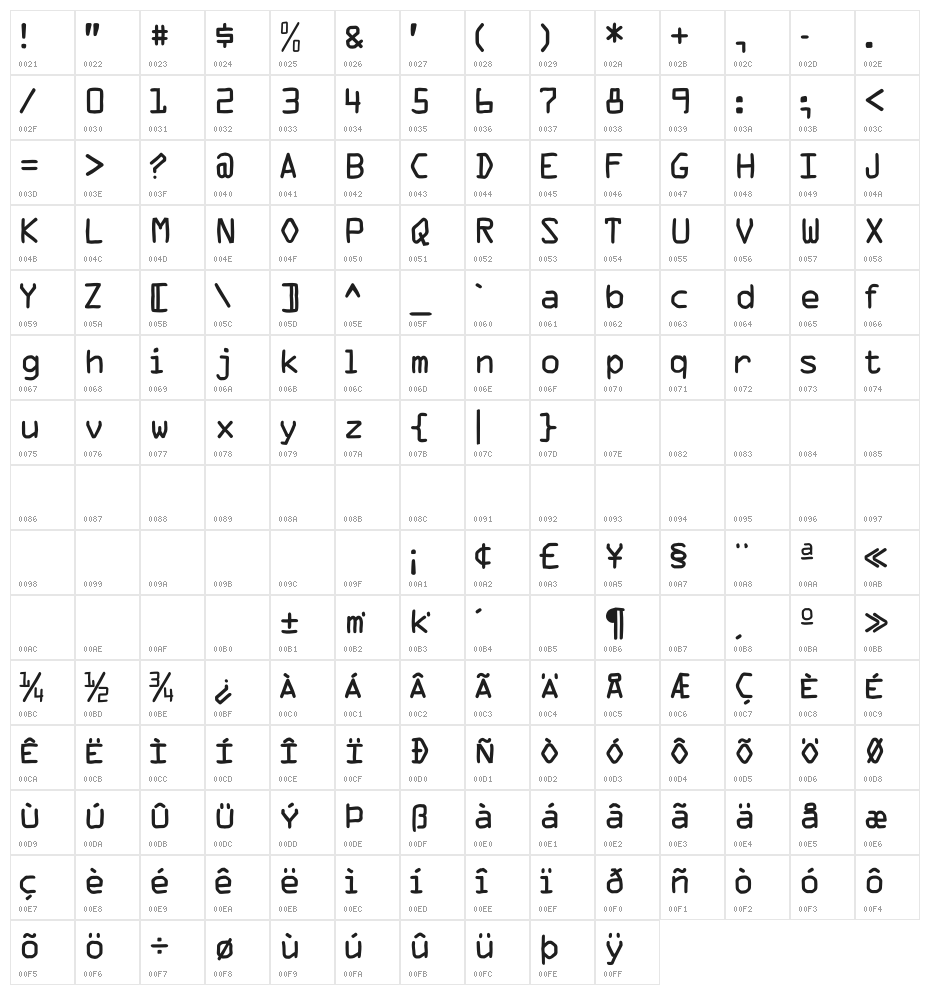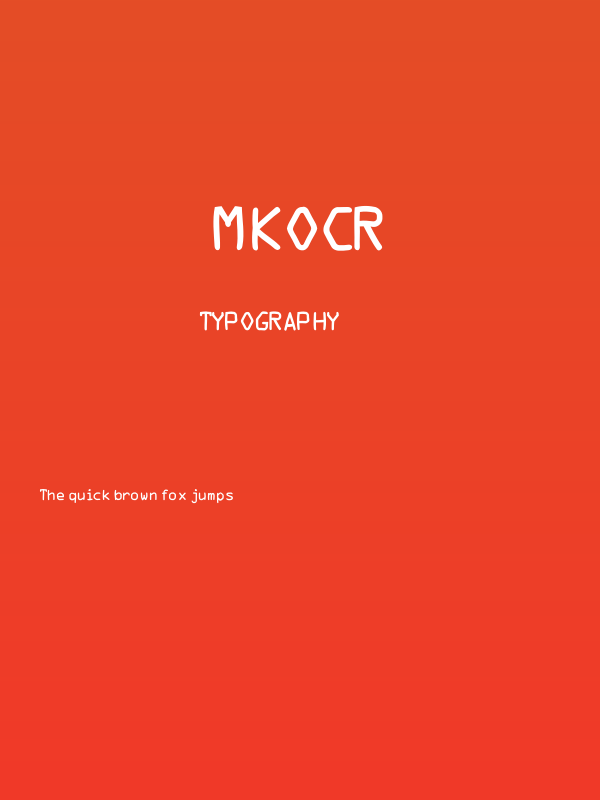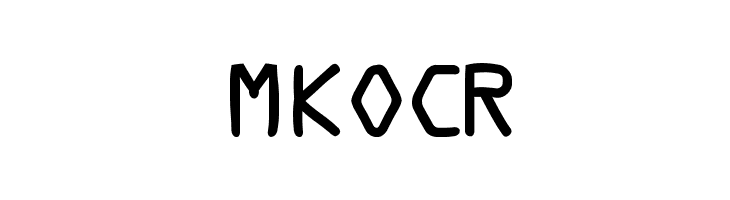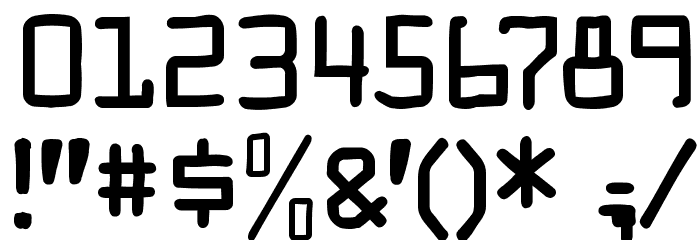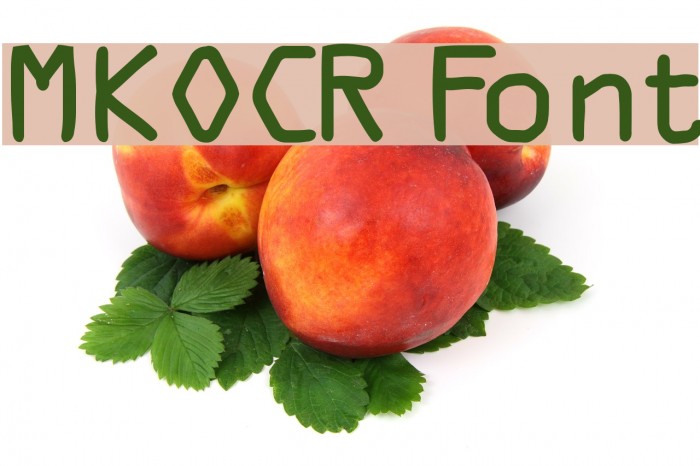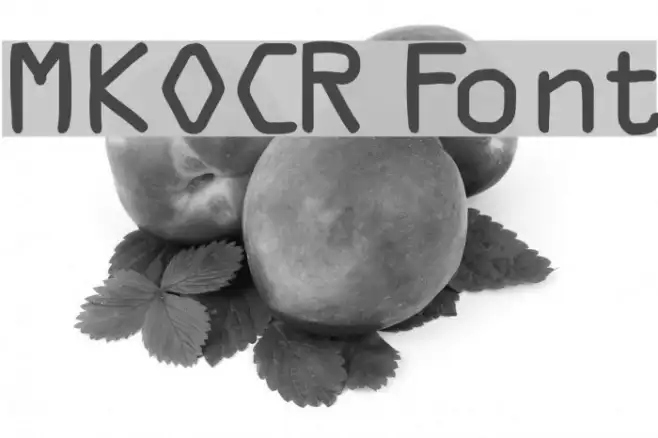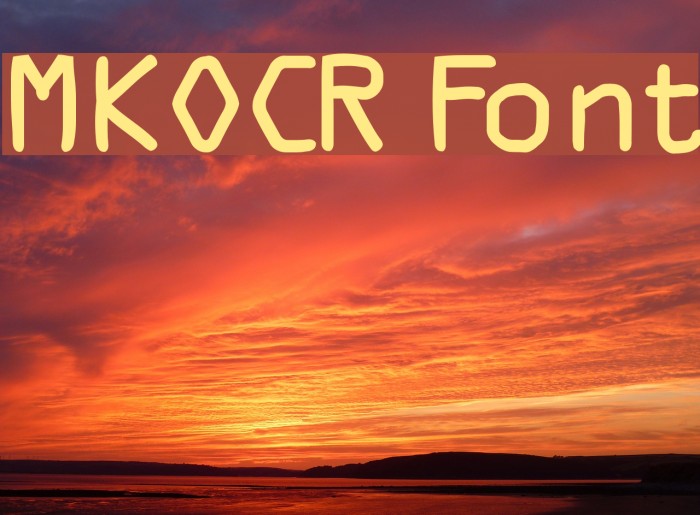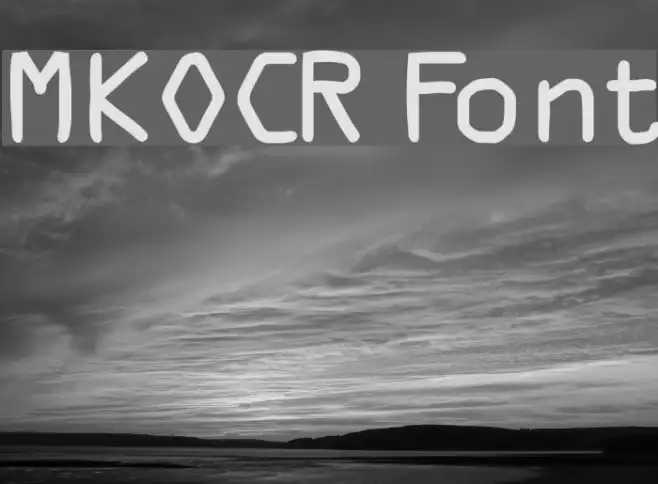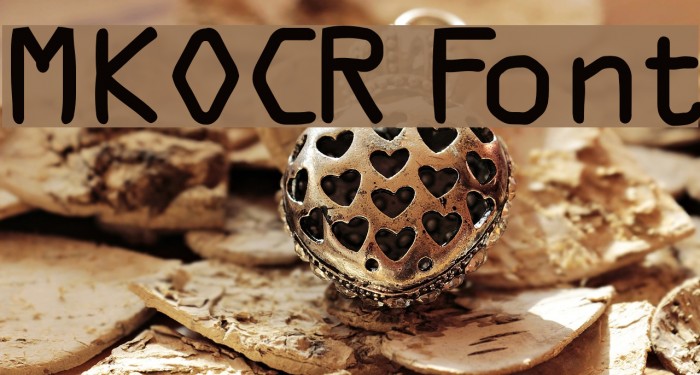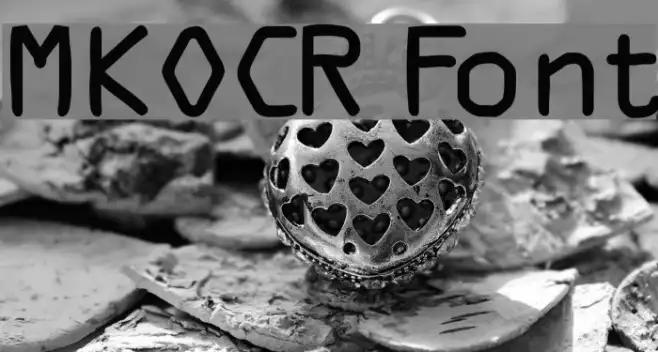
MKOCR Font
MKOCR Description
This font features a playful and slightly irregular design, giving it a handwritten feel. The characters are bold and rounded, with a consistent stroke width that maintains readability. The uppercase letters have a quirky charm, while the lowercase letters are more subdued, yet still maintain the overall whimsical style. Numbers and special characters follow the same playful aesthetic, making this font suitable for creative and informal projects. The uniformity in stroke width ensures clarity, while the slight irregularities add a unique personality.
| Overall Style | Playful |
| Use Case | Headlines, Logos, Informal Text |
| Proposed Projects | Ideal for children's books, playful branding, greeting cards, and informal invitations. |